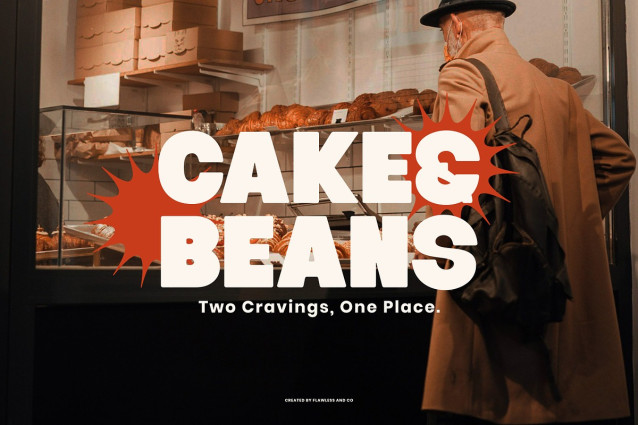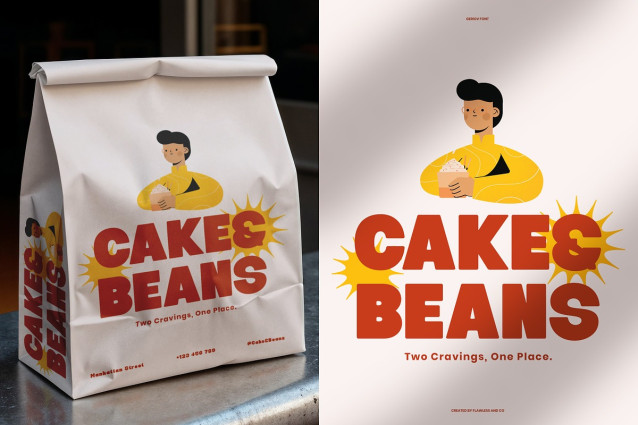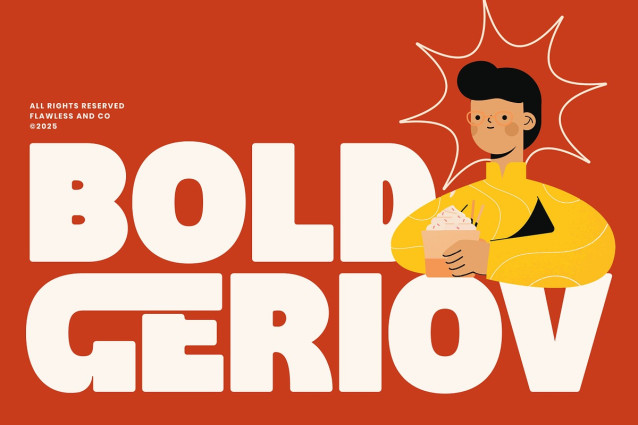
Bold Geriov Font
Bold Geriov Font is a bold display font designed to bring instant impact and character to your design. With its chunky shapes, smooth curves, and friendly quirky style, Bold Geriov delivers a fun yet strong visual presence—perfect for projects that need to feel bold, modern, and full of personality. Ideal for branding, packaging, posters, social media, merchandise, and any creative work that needs a standout headline font, Bold Geriov gives your design a fresh, expressive, and memorable look.